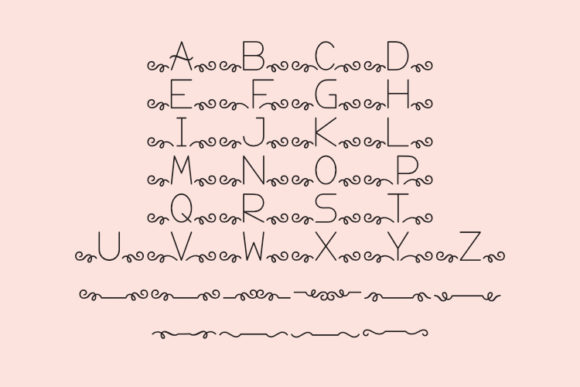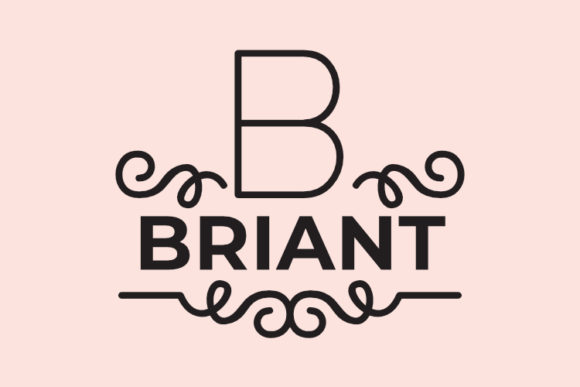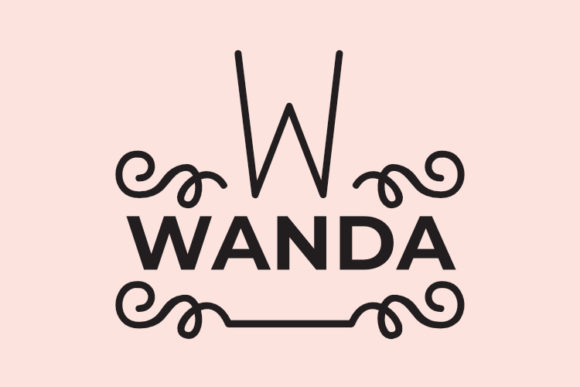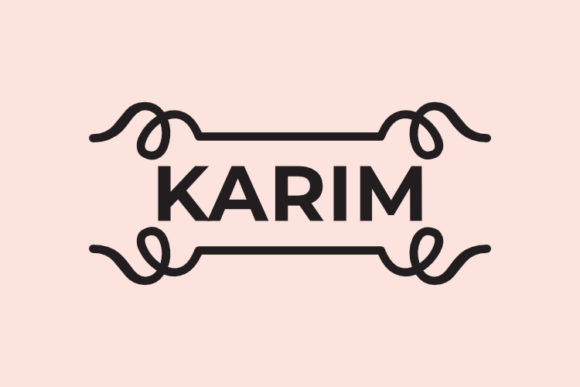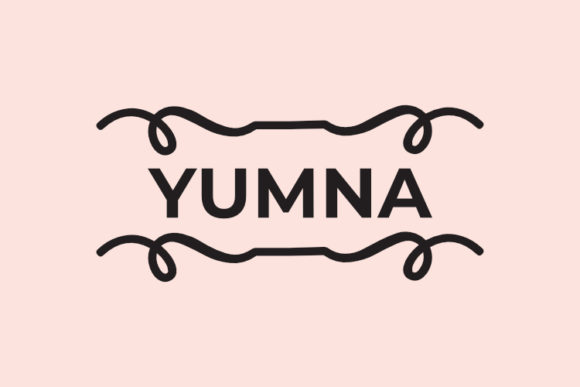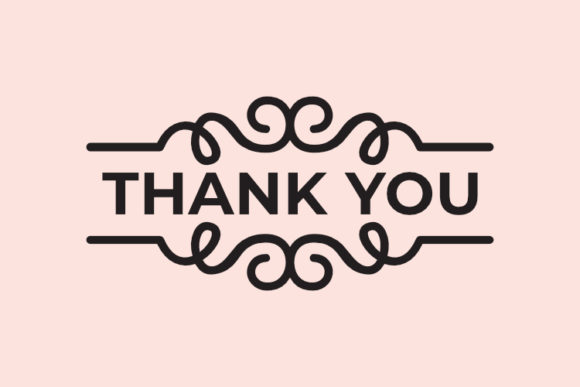
Introduction to Meniko Font
As a designer, have you ever found yourself stuck in a creative rut, searching for that perfect element to elevate your project? You’ve scoured through design resources, poured over high-quality fonts, and experimented with various layouts, but still, something’s missing. It’s in these moments that you stumble upon a game-changer – a font that not only catches the eye but also transports your design to new heights.
Enter the Meniko Font, a stunning display font that’s about to become your go-to design resource. With its beautiful swashes and elegant flair, Meniko Font is the perfect addition to any creative project. Whether you’re working on a bold logo, a captivating title, or a visually striking poster, Meniko Font is sure to bring your design to life. And the best part? It’s available for free download, making it an accessible and valuable resource for designers of all levels.
Key Features of Meniko Font
- Meniko Font is a versatile design resource, suitable for a wide range of creative projects, from logos and branding to advertising and editorial content.
Honest Review: Meniko Font
As a designer, I’m always on the lookout for high-quality design resources to enhance my creative projects. Recently, I stumbled upon the Meniko Font, and I’m excited to share my honest review with you.
What works well: ✨ The Meniko Font is available for free download, making it an excellent addition to any design project. Its sleek and modern design is perfect for creating a sophisticated look. The font is also highly customizable, allowing you to adjust its size, color, and opacity to suit your needs.
- High-quality design with a modern twist
However, there are a few limitations to consider: ⚠️ The Meniko Font is not as extensive as some other font libraries, and it may not be suitable for projects that require a wide range of font styles.
Overall, I’m impressed with the Meniko Font’s design and functionality. While it may have some limitations, it’s a great resource for designers looking to add a touch of sophistication to their creative projects.
Common Use Cases for Meniko Font
Meniko Font is perfect for creating logos, headings, and titles in your creative project.
Use it to add a touch of sophistication and elegance to your design.